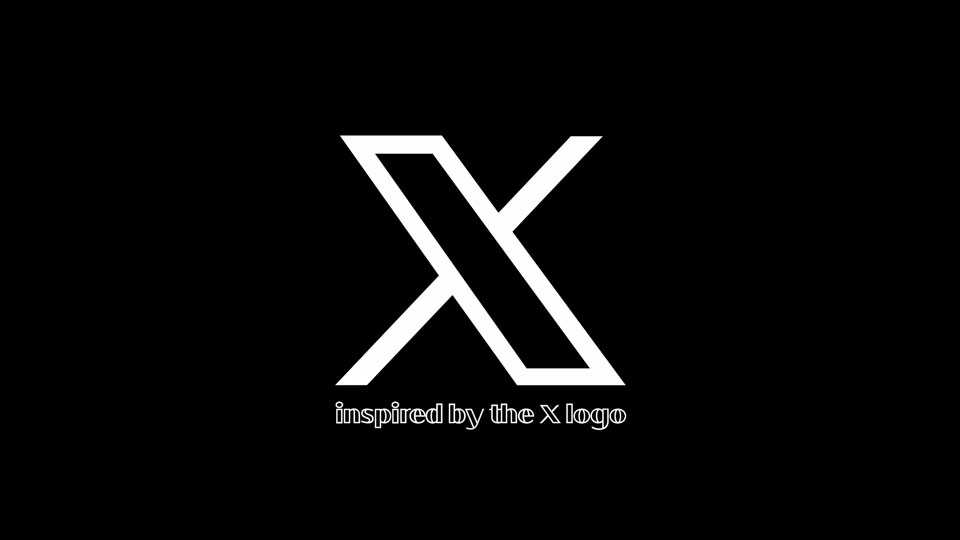
Download X font, a modern outline font inspired by the X logo for the social media company. Jazzy and light, this font would look great in headlines for posters.